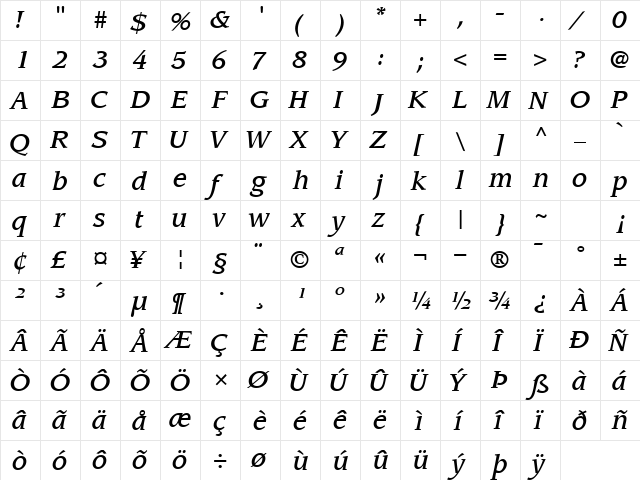
AdvisorMediumSSK Italic
Design Context for AdvisorMediumSSK Typeface
AdvisorMediumSSK offers clean, dependable letterforms without strong stylistic allegiance, making it a practical choice for designers who need flexibility. The slanted form adds forward momentum and visual energy.
Pro Tip: Use AdvisorMediumSSK for emphasis, pull quotes, and subheadings where its slanted energy can add rhythm to the layout.